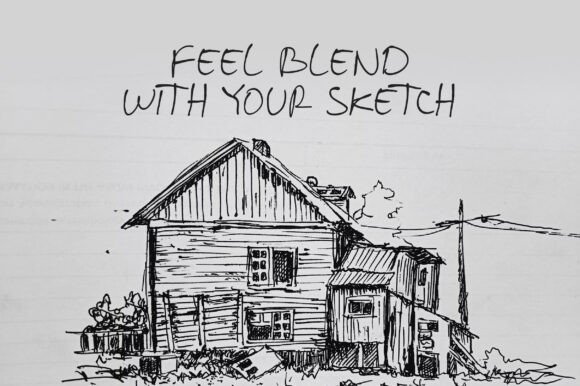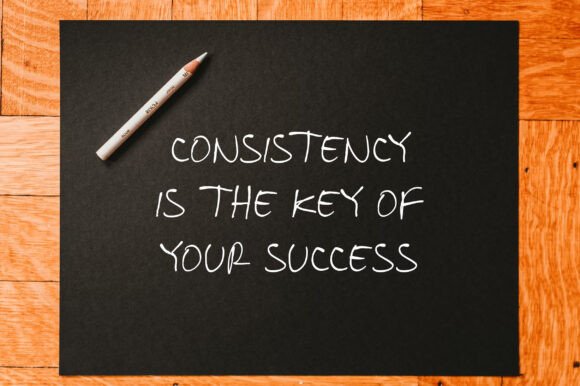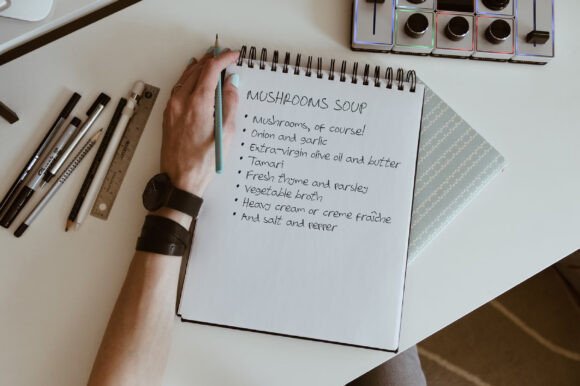
Brownies Handdrawn Font
Brownies Handdrawn is a script handwriting fonts that seamlessly blend natural, bold, and quote-worthy styles, perfect for adding a personal touch to your designs. These typefaces emulate authentic handwriting, offering a spectrum from delicate swashes to robust strokes, ideal for branding, invitations, and expressive typography.